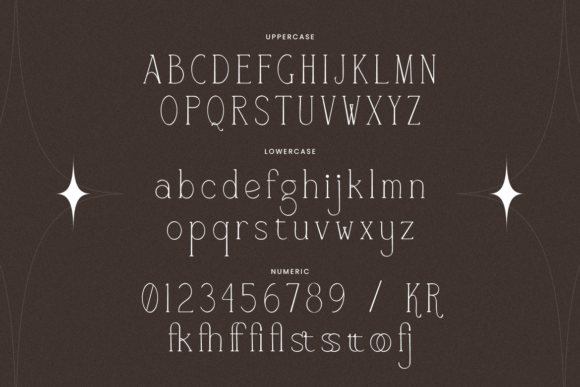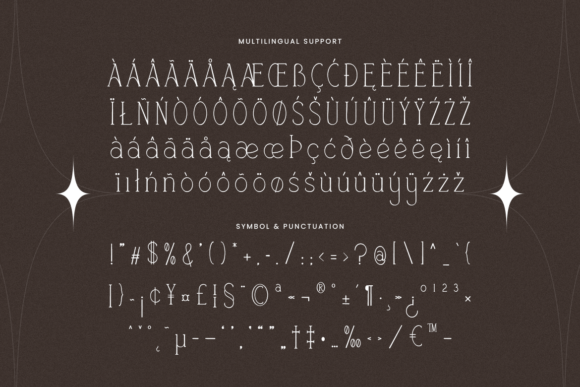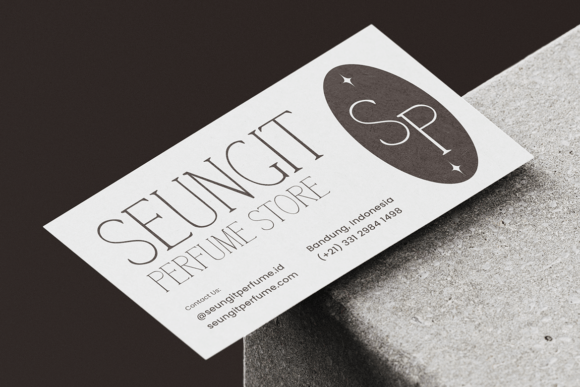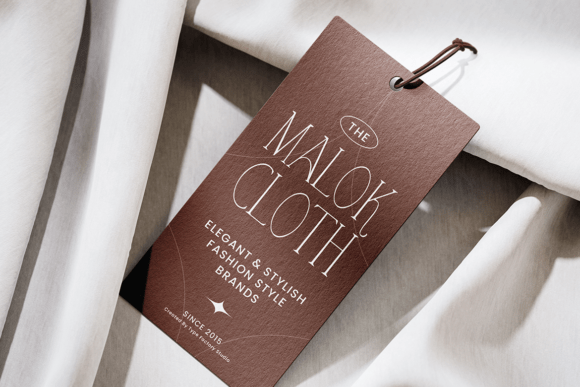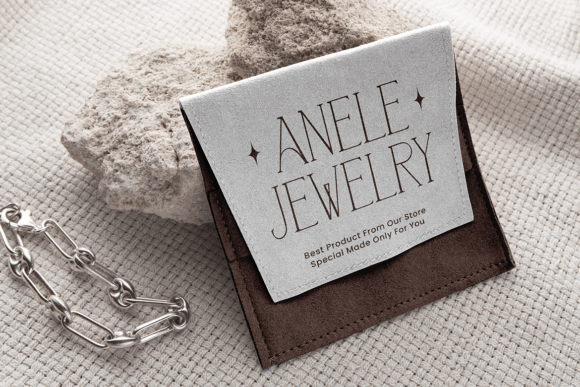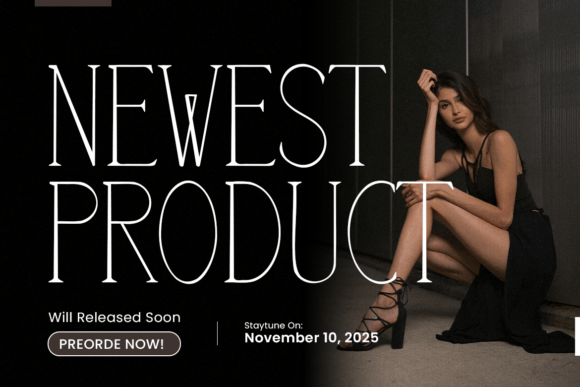
Introducing Chanelle Font: Elevate Your Designs with Modern Fashion Serif Elegance
In the world of typography, a well-crafted font can make all the difference in elevating your design to new heights. For designers and crafters seeking a modern, sophisticated, and stylish typeface, look no further than Chanelle Font. This contemporary fashion serif typeface is specifically designed to bring a touch of elegance and refinement to your visual layouts, making it perfect for high-end branding, fashion campaigns, and editorial compositions.
The Characteristics of Chanelle Font
Chanelle Font boasts refined proportions and elegant letterforms, making it a standout in the world of typography. Its characters feature clean, thin strokes that are beautifully complemented by subtle serif details. This harmonious combination creates a sophisticated and stylish typographic appearance that is sure to captivate your audience. The balanced structure of Chanelle ensures that it remains legible and aesthetically pleasing, even at smaller font sizes.
Ideal Applications for Chanelle Font
Due to its versatile and elegant design, Chanelle Font is suitable for a wide range of applications. Some of the ideal uses for this typeface include:
- Branding and Logo Design: Create a lasting impression with Chanelle’s sophisticated and modern serif style, perfect for luxury brands and high-end products.
- Fashion Campaigns: Elevate your fashion marketing materials with a typeface that exudes style and elegance.
- Beauty Packaging: Add a touch of luxury to your product packaging with Chanelle’s refined and sophisticated design.
- Magazine Headlines: Make a statement with Chanelle’s bold and elegant serif style, perfect for capturing readers’ attention.
Why Choose Chanelle Font?
For designers and crafters seeking a clean and contemporary serif style, Chanelle Font is an excellent choice. Its unique blend of modernity and elegance sets it apart from other typefaces, making it perfect for projects that require a touch of sophistication. With Chanelle, you can:
- Enhance Your Brand’s Visual Identity: Create a cohesive and luxurious visual brand identity with Chanelle’s elegant design.
- Stand Out in a Crowded Market: Use Chanelle’s unique and stylish typography to differentiate your brand and capture attention.
- Elevate Your Design Skills: Add a touch of sophistication and elegance to your designs with Chanelle’s refined and modern serif style.
Tips for Using Chanelle Font Effectively
To get the most out of Chanelle Font, consider the following tips:
- Pair with Complementary Fonts: Combine Chanelle with clean sans-serif fonts to create a harmonious and visually appealing typographic contrast.
- Experiment with Font Sizes: Use Chanelle’s elegant design to create visual hierarchy and emphasis in your layouts.
- Pay Attention to Kerning and Tracking: Ensure that your text is legible and aesthetically pleasing by adjusting kerning and tracking to suit your design needs.
Chanelle Font is a versatile and elegant typeface that is perfect for designers and crafters seeking a modern fashion serif style. With its refined proportions, elegant letterforms, and subtle serif details, Chanelle is sure to elevate your designs to new heights. Whether you’re working on branding, fashion campaigns, or editorial compositions, Chanelle Font is an excellent choice for adding a touch of sophistication and style to your visual layouts.